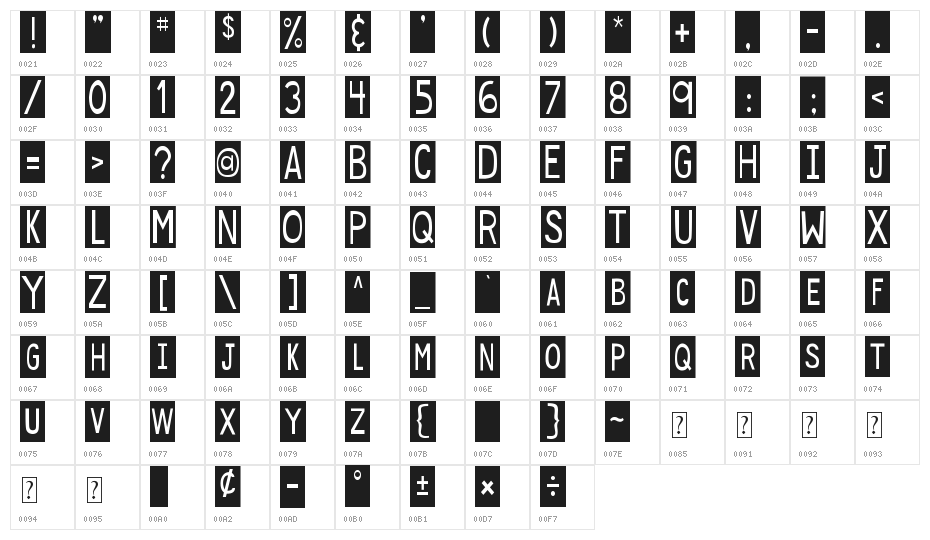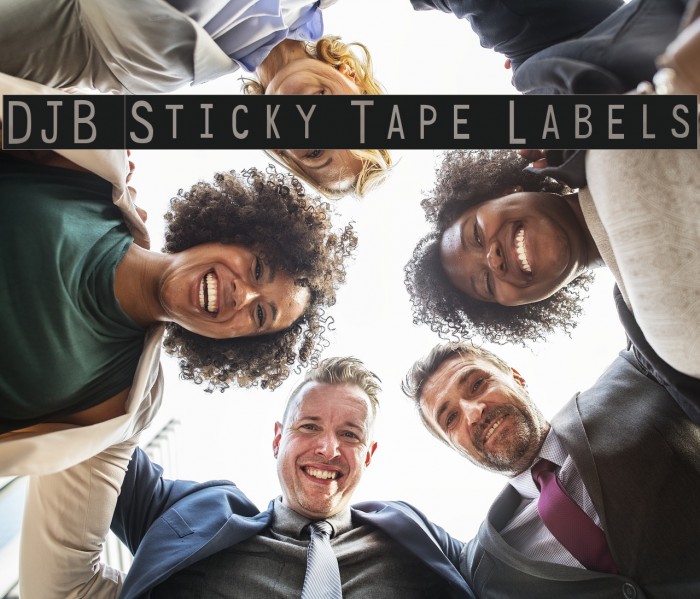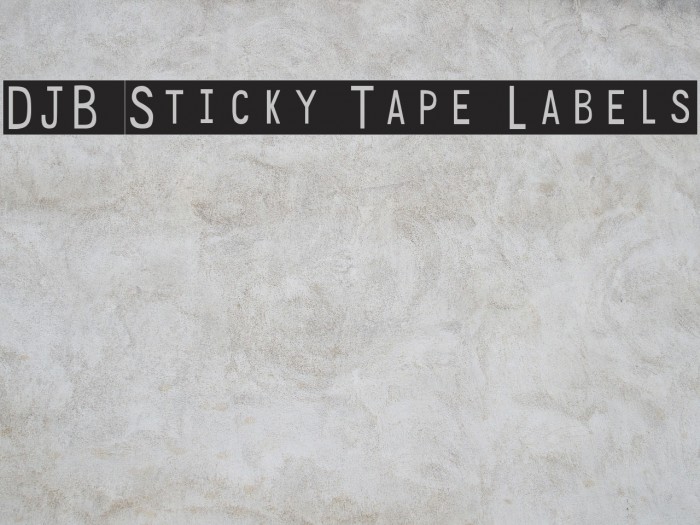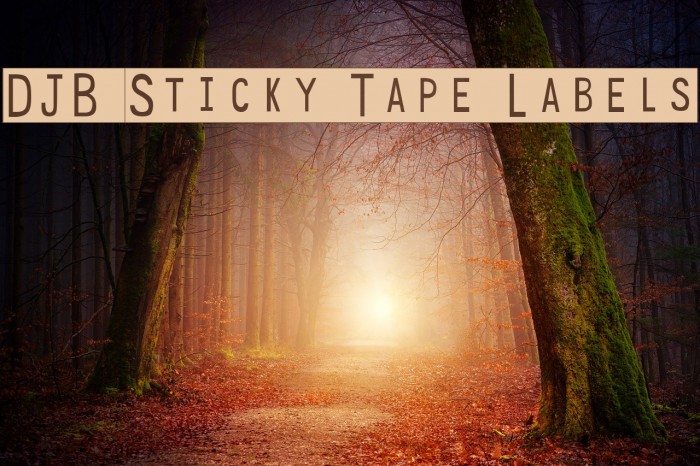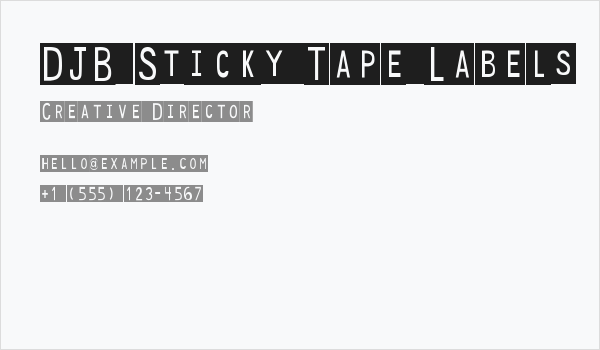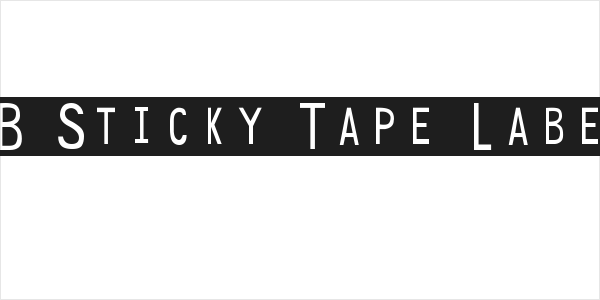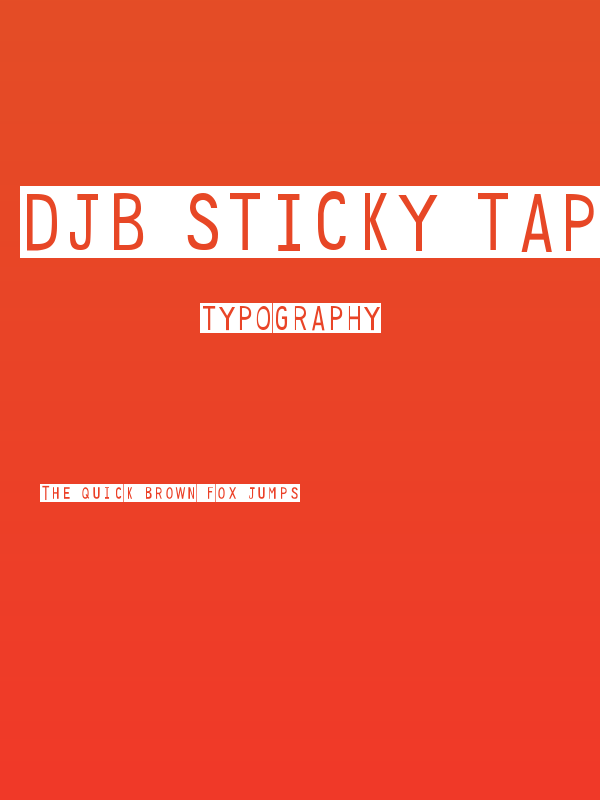
DJB Sticky Tape Labels Font
DJB Sticky Tape Labels Description
This font features a bold, sans-serif style with a modern, clean appearance. The characters are uniformly sized with consistent stroke widths, giving it a structured and organized look. The uppercase letters are prominent and well-defined, while the lowercase letters maintain the same clarity and simplicity. Numbers are equally bold and clear, making them easily readable. The special characters are straightforward, complementing the overall design. This font's style is reminiscent of classic label makers, providing a nostalgic yet contemporary feel.
| Use Case | Headlines, Labels, Signage |
| Proposed Projects | Ideal for projects requiring clear labeling, such as packaging, signage, or organizational materials. It can also be used for digital interfaces where readability is key. |